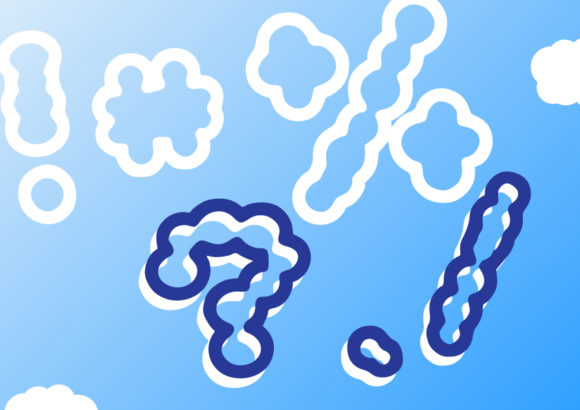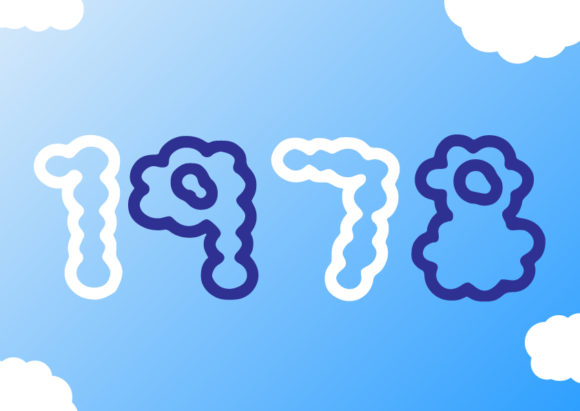
Introducing Fluffy Smoke Font: The Ultimate Comic Display Font for Creative Projects
Are you tired of using the same old fonts for your creative projects? Do you want to add a touch of personality and whimsy to your designs? Look no further than Fluffy Smoke Font, a rounded comic display font that’s sure to delight. With its unique fluffy clouds look, this font is perfect for any project that requires a personalized and eye-catching touch.
What is Fluffy Smoke Font?
Fluffy Smoke Font is a carefully crafted font that’s designed to bring a sense of fun and playfulness to your designs. Its rounded edges and soft, puffy texture give it a distinctive look that’s reminiscent of fluffy clouds on a sunny day. This font is perfect for designers, crafters, and anyone looking to add a bit of humor and whimsy to their work.
Key Features of Fluffy Smoke Font
- Rounded Comic Display Font: Fluffy Smoke Font features a rounded, comic-style design that’s perfect for creating eye-catching headlines and titles.
- Fluffy Clouds Look: The font’s unique texture and soft edges give it a fluffy clouds look that’s sure to delight.
- Personalized Look: With Fluffy Smoke Font, you can add a touch of personality to your designs and make them stand out from the crowd.
- Easy to Read: Despite its playful design, Fluffy Smoke Font is easy to read and understand, making it perfect for use in a variety of creative projects.
Use Cases for Fluffy Smoke Font
So, what can you use Fluffy Smoke Font for? The possibilities are endless! Here are a few ideas to get you started:
- Graphic Design Projects: Use Fluffy Smoke Font to create eye-catching posters, flyers, and brochures that are sure to grab attention.
- Crafting and Scrapbooking: Add a touch of whimsy to your scrapbooking and crafting projects with Fluffy Smoke Font.
- Digital Art and Illustrations: Use Fluffy Smoke Font to add text and captions to your digital art and illustrations.
- Web Design and Development: Use Fluffy Smoke Font to create engaging and interactive web pages that are sure to delight your visitors.
Why Choose Fluffy Smoke Font?
So, why should you choose Fluffy Smoke Font for your creative projects? Here are just a few reasons:
- Unique and Eye-Catching Design: Fluffy Smoke Font features a unique and eye-catching design that’s sure to grab attention.
- High-Quality Design: Fluffy Smoke Font is designed to high-quality standards, ensuring that your designs look professional and polished.
In conclusion, Fluffy Smoke Font is a unique and eye-catching font that’s perfect for any creative project that requires a personalized look. With its fluffy clouds texture and rounded comic display design, this font is sure to delight designers, crafters, and anyone looking to add a bit of humor and whimsy to their work. So why wait? Download Fluffy Smoke Font today and start creating engaging and interactive designs that are sure to grab attention!